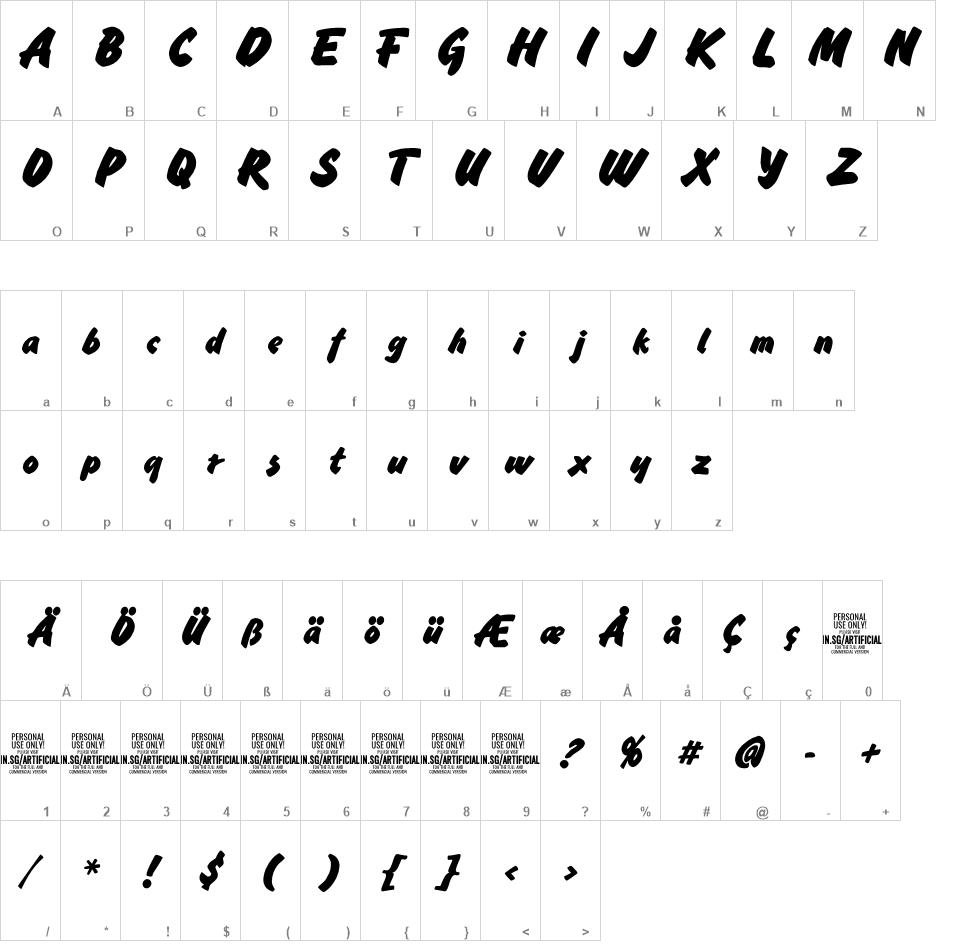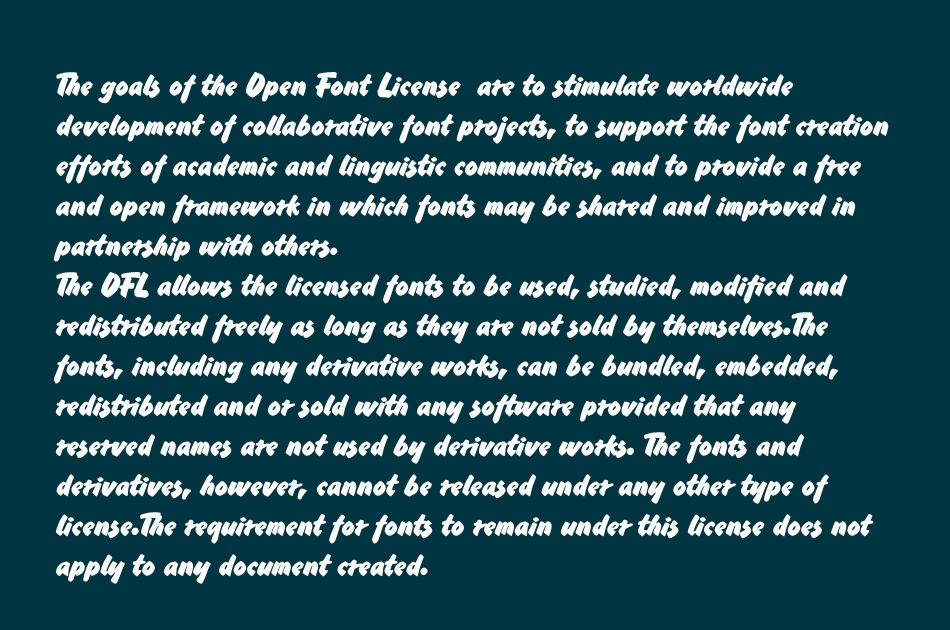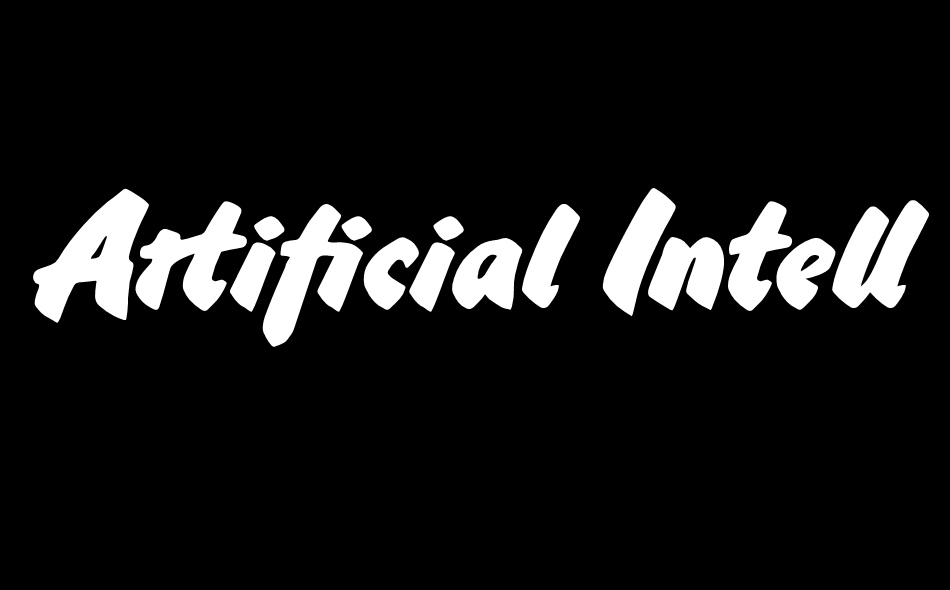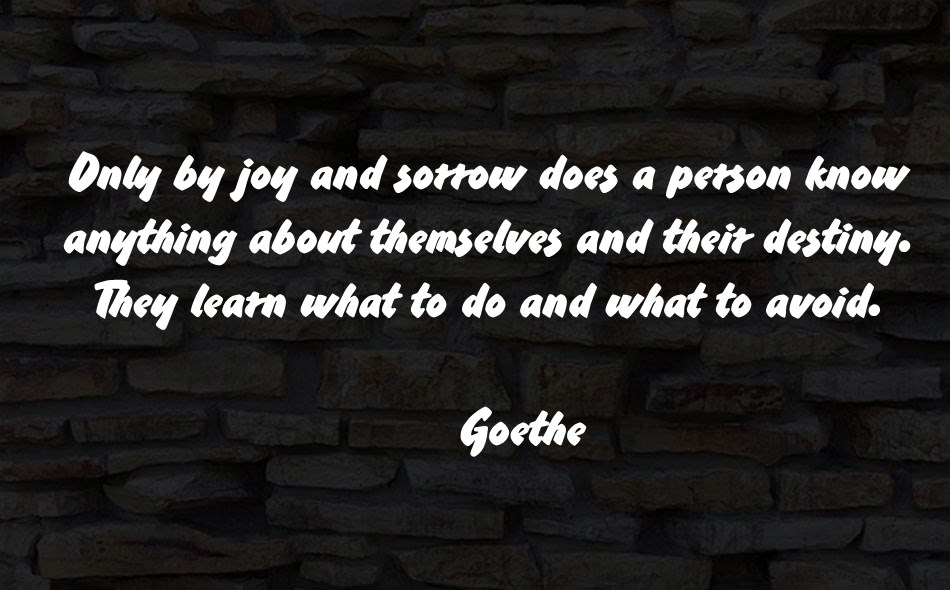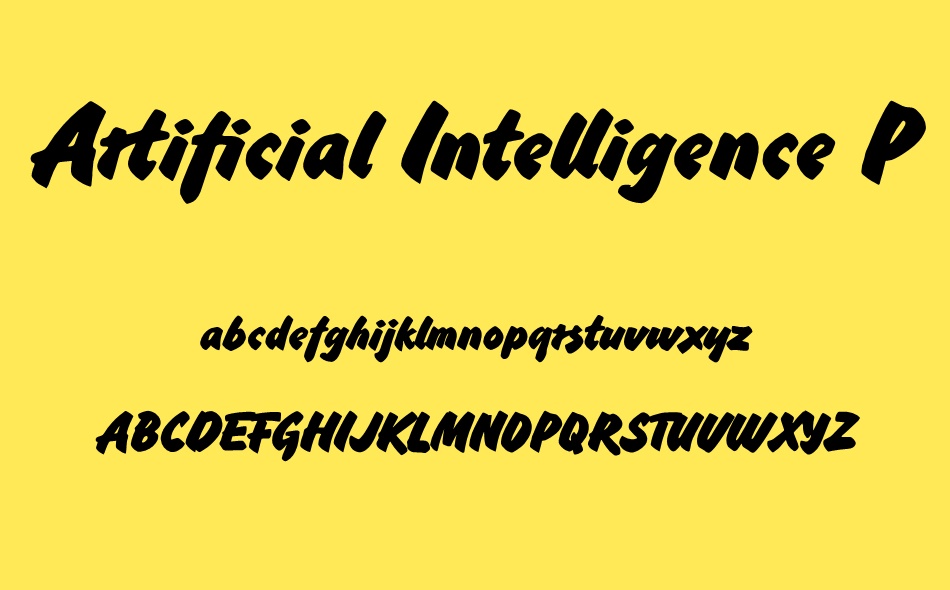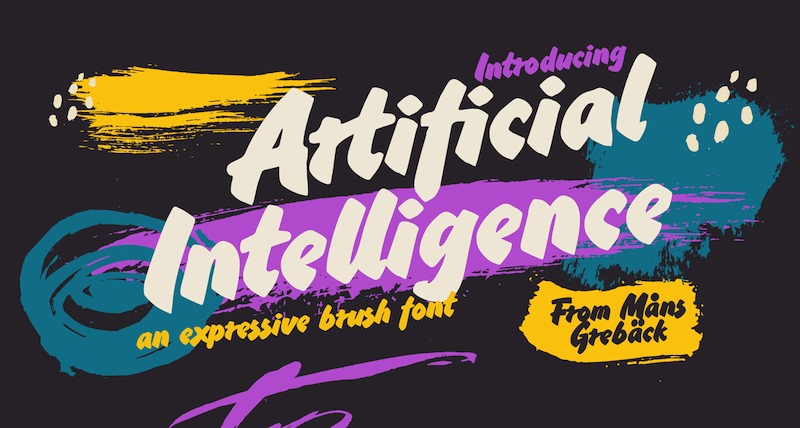
Artificial Intelligence font
As the world's first public and commercially available AI typeface, Artificial Intelligence celebrates the interaction between humanity and technology, in an attempt to blur the lines between hard data and interpretation.
Artificial Intelligence is a computer generated typeface, in a brush handwriting style.
As the world's first public and commercially available AI typeface, Artificial Intelligence celebrates the interaction between humanity and technology, in an attempt to blur the lines between hard data and interpretation.
Based on 400 of Mans Greback's typefaces, this machine learning is bold and expressive, with a touch of retro while keeping it hip.
It is provided in an all-caps uppercase style, Artificial Intelligence Caps, as well as the Regular style with lowercase lettering.
The font is built with advanced OpenType functionality and has a guaranteed top-notch quality, containing stylistic and contextual alternates, ligatures and more features; all to give you full control and customizability. It has extensive lingual support, covering all Latin-based languages, from Northern Europe to South Africa, from America to South-East Asia. It contains all characters and symbols you'll ever need, including all punctuation and numbers.